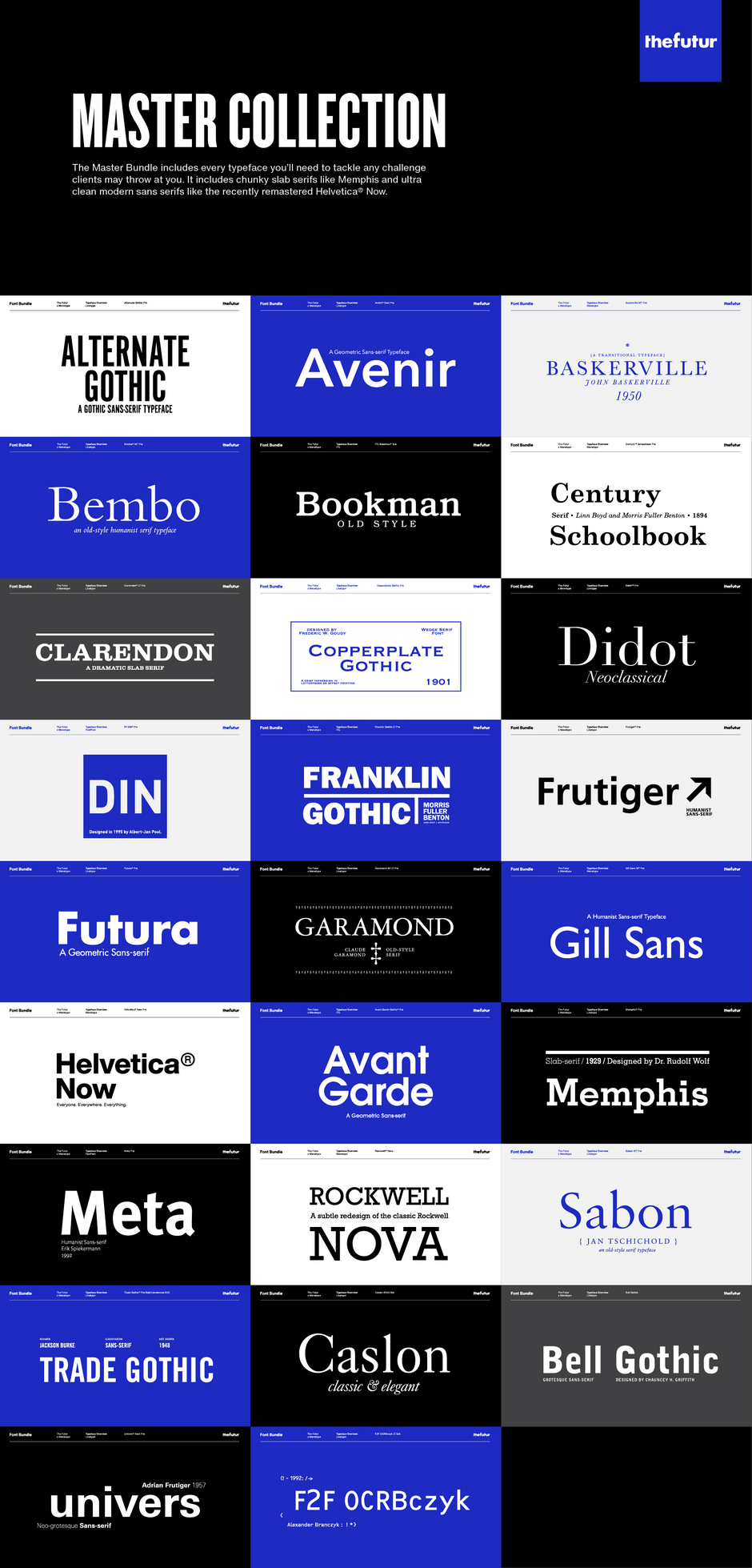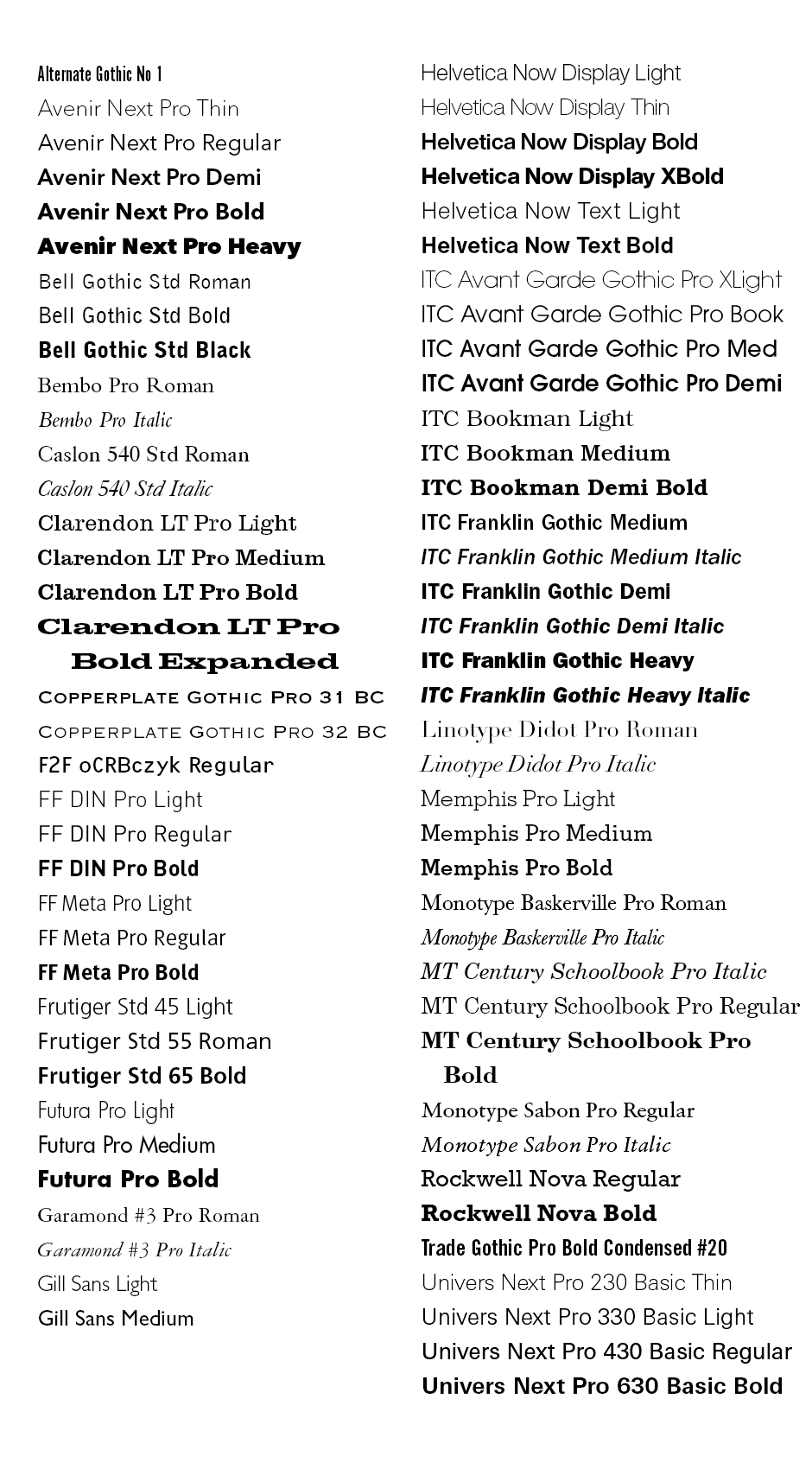
Futur Master Bundle
The Master Bundle, curated by The Futur CEO, Chris Do, is his take on the complete set of every typeface you’ll need to tackle any challenge clients may throw at you. It includes chunky slab serifs like Memphis and ultra clean modern sans serifs like the recently remastered Helvetica® Now.